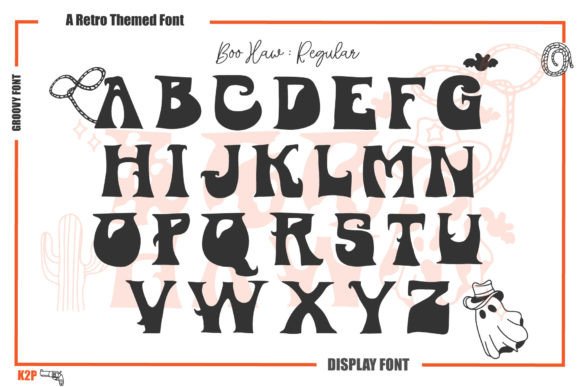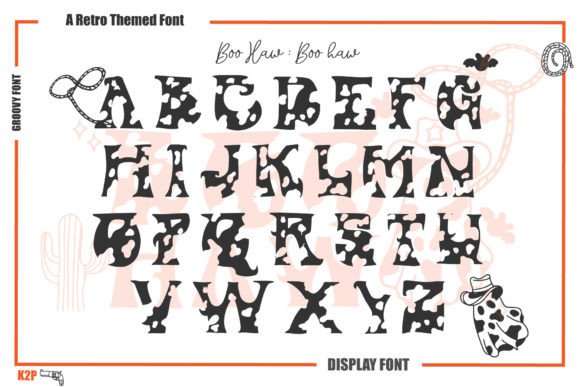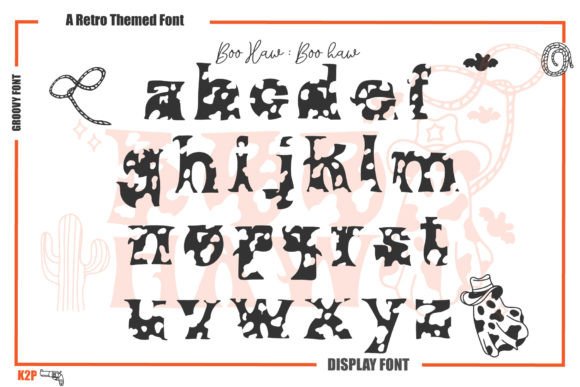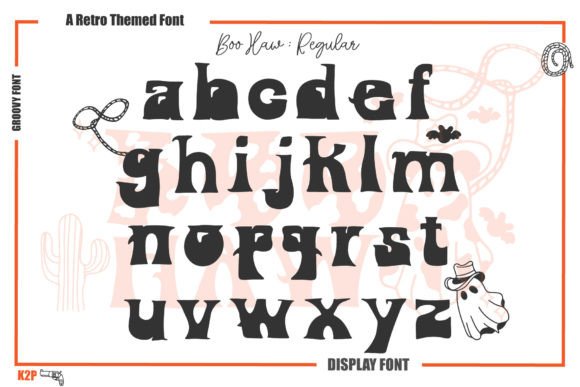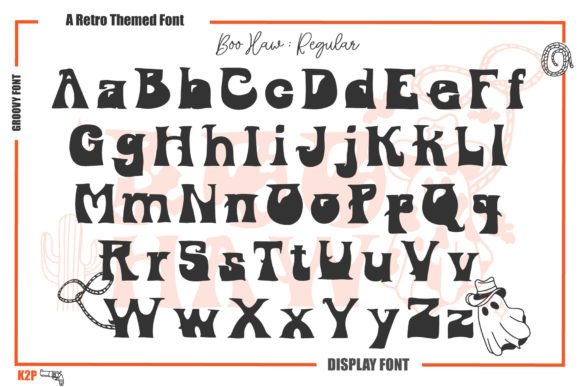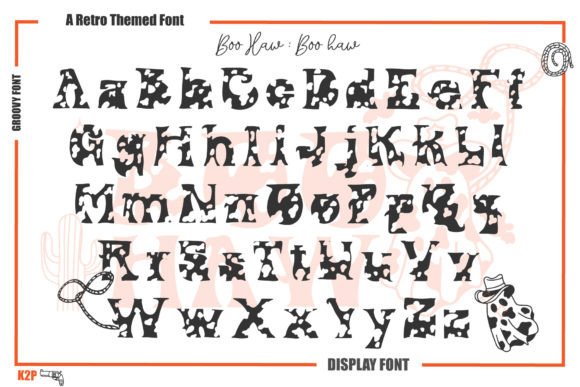
Introducing Boo Haw Font: The Spookiest Decorative Font for Halloween
Are you looking for a font that screams Halloween? Do you want to add a spooky touch to your designs, crafts, or projects? Look no further than Boo Haw Font! This thick-lettered and spooky decorative font is perfectly suitable for any Halloween-related project or crafty idea. The only limit is your imagination.
What is Boo Haw Font?
Boo Haw Font is a unique and eye-catching font that is specifically designed to capture the spirit of Halloween. Its thick, bold letters are perfect for creating eye-catching headlines, titles, and signs that will make your projects stand out. The font’s spooky and playful vibe makes it ideal for use in a variety of creative projects, from Halloween-themed party invitations to spooky crafts and decorations.
Key Features of Boo Haw Font
- Thick-Lettered: Boo Haw Font features thick, bold letters that are perfect for creating eye-catching headlines and titles.
- Spooky Decorative: The font’s spooky and playful vibe makes it ideal for use in Halloween-themed projects and crafts.
- Highly Versatile: Boo Haw Font can be used in a variety of creative projects, from party invitations to spooky crafts and decorations.
Uses for Boo Haw Font
Boo Haw Font is a highly versatile font that can be used in a variety of creative projects, including:
- Halloween Party Invitations: Create spooky and eye-catching invitations for your Halloween party using Boo Haw Font.
- Spooky Crafts: Use Boo Haw Font to add a spooky touch to your Halloween crafts, such as jack-o-lanterns, ghostly decorations, and more.
- Halloween-themed Signs: Create eye-catching signs for your Halloween party or event using Boo Haw Font.
- Digital Designs: Use Boo Haw Font in your digital designs, such as social media graphics, blog posts, and more.
Tips for Using Boo Haw Font
Here are a few tips for using Boo Haw Font in your creative projects:
- Experiment with Colors: Boo Haw Font looks great in a variety of colors, so don’t be afraid to experiment and find the perfect color for your project.
- Mix and Match: Combine Boo Haw Font with other fonts and graphics to create a unique and eye-catching design.
- Keep it Simple: Don’t overcomplicate your design – sometimes, simple is best. Use Boo Haw Font to create a bold and eye-catching headline or title.
Boo Haw Font is a spooky and decorative font that is perfect for any Halloween-related project or crafty idea. Its thick, bold letters and playful vibe make it ideal for use in a variety of creative projects, from party invitations to spooky crafts and decorations. With its ease of use and high versatility, Boo Haw Font is a must-have for designers and crafters looking to add a spooky touch to their projects. So why wait? Download Boo Haw Font today and let your imagination run wild!